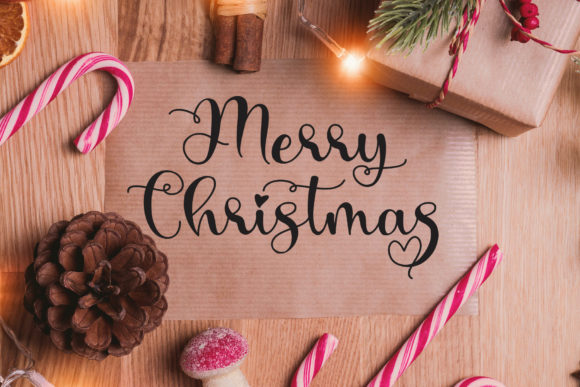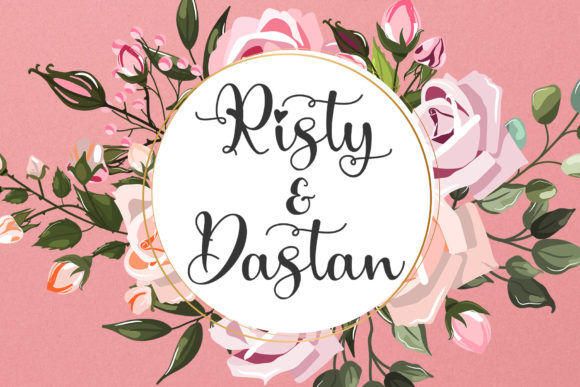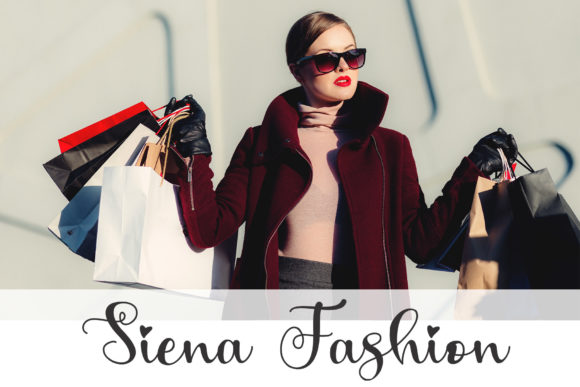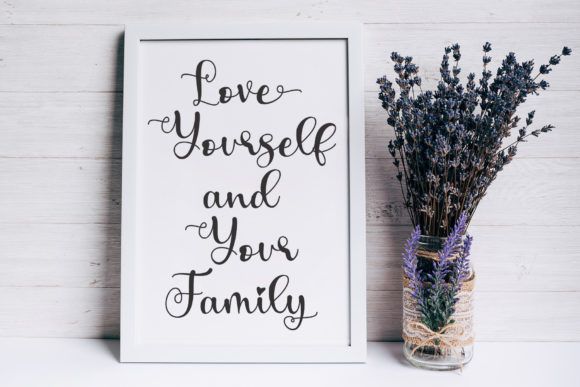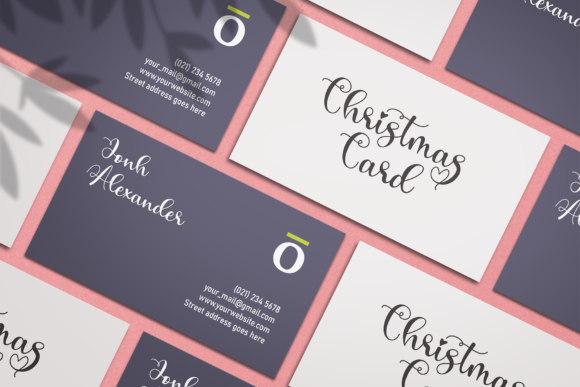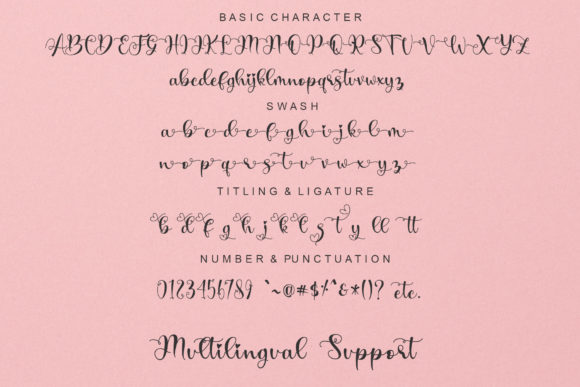
Introducing Early Christmas Font: A Charming Script Font for Your Holiday Designs
Are you looking for a beautiful and playful font to add a touch of magic to your Christmas designs? Look no further than the Early Christmas font! This lovely script font features charming, playful characters that seem to dance along the baseline, making it perfect for creating festive and eye-catching designs.
What Makes Early Christmas Font So Special?
Early Christmas font is a PUA (Private Use Area) encoded font, which means that you can access all of the glyphs and swashes with ease. This makes it incredibly easy to use and customize, even for those who are new to font design. The font features a wide range of characters, including uppercase and lowercase letters, numbers, and punctuation marks, as well as a selection of swashes and glyphs to add a touch of elegance to your designs.
Whether you’re a designer, crafter, or DIY enthusiast, the Early Christmas font is the perfect addition to your font collection. Its playful and charming characters make it ideal for creating a wide range of holiday designs, from Christmas cards and invitations to decorations and gift tags. The font is also highly versatile, making it suitable for use on a variety of materials, including paper, fabric, and digital devices.
Key Features of Early Christmas Font
- Charming, playful characters: Adds a touch of magic to your designs
- Script font: Perfect for creating festive and eye-catching designs
- Wide range of characters: Includes uppercase and lowercase letters, numbers, and punctuation marks
- Swashes and glyphs: Add a touch of elegance to your designs
Ideas for Using Early Christmas Font
The Early Christmas font is incredibly versatile, making it suitable for a wide range of holiday designs. Here are a few ideas to get you started:
- Christmas cards and invitations: Add a touch of magic to your holiday cards and invitations with the Early Christmas font
- Holiday decorations: Use the font to create festive decorations, such as garlands and gift tags
- Digital designs: Use the font to create eye-catching digital designs, such as social media graphics and holiday-themed wallpapers
- Craft projects: Add a touch of elegance to your craft projects, such as scrapbooking and paper crafting
The Early Christmas font is a beautiful and charming script font that’s perfect for adding a touch of magic to your holiday designs. With its PUA encoding and wide range of characters, it’s easy to use and customize, making it suitable for designers, crafters, and DIY enthusiasts of all levels. So why wait? Download the Early Christmas font today and start creating your own festive and eye-catching designs!